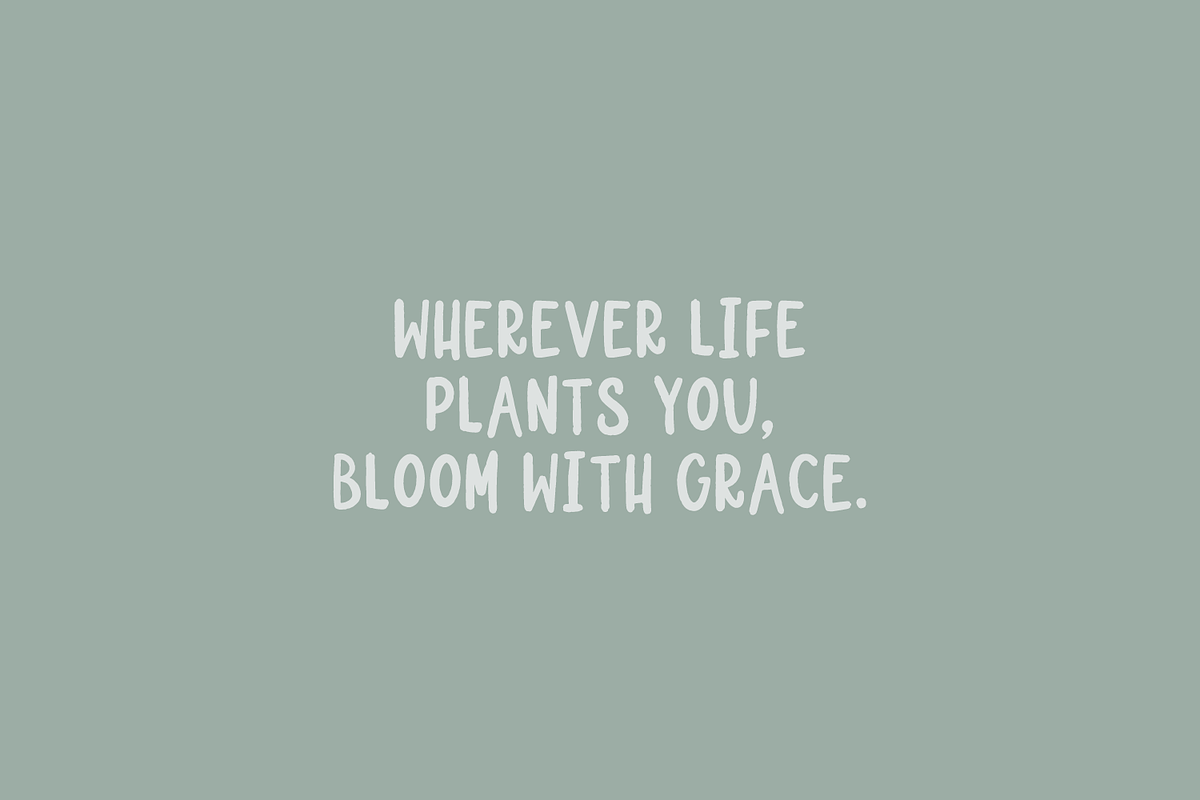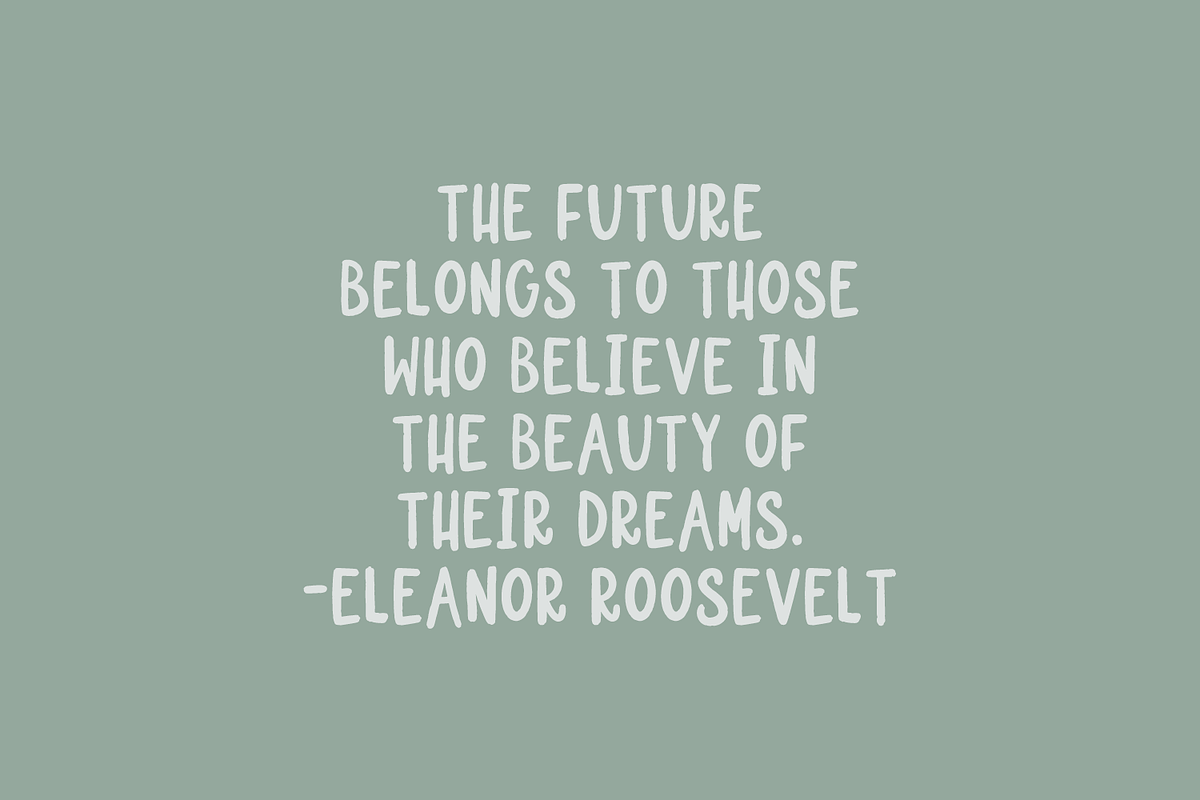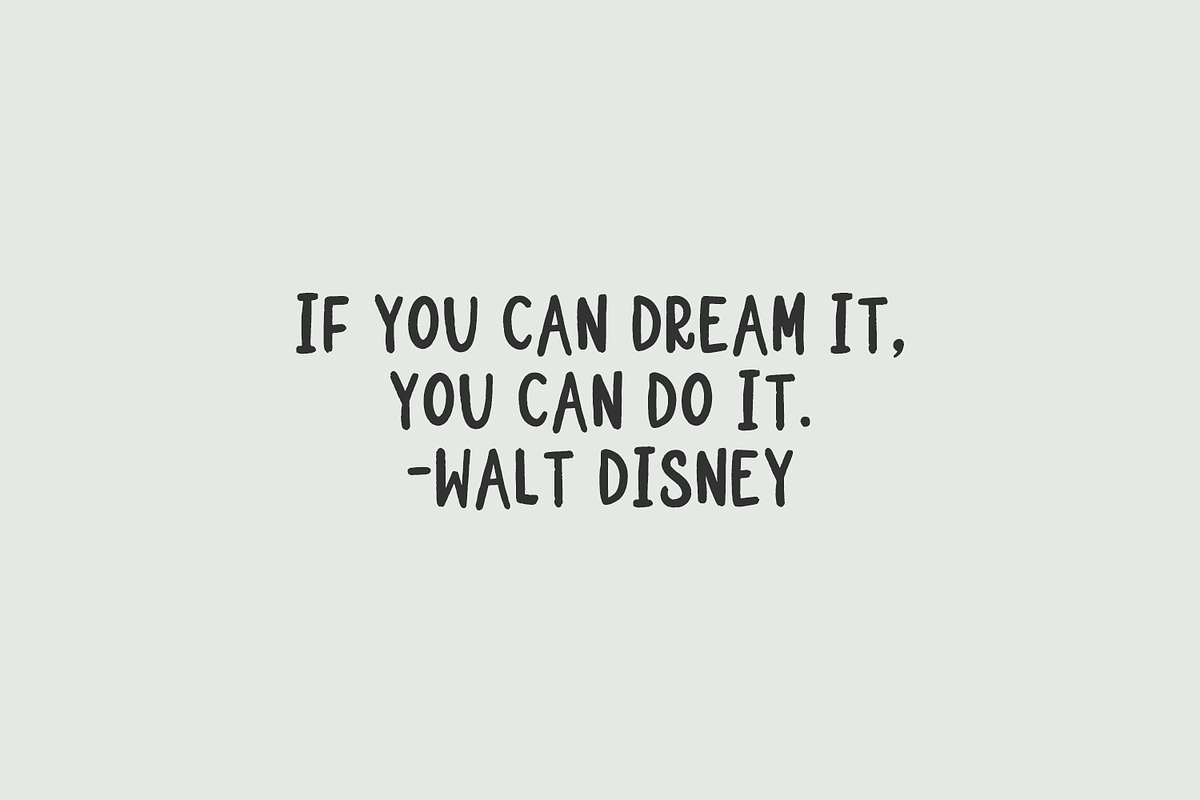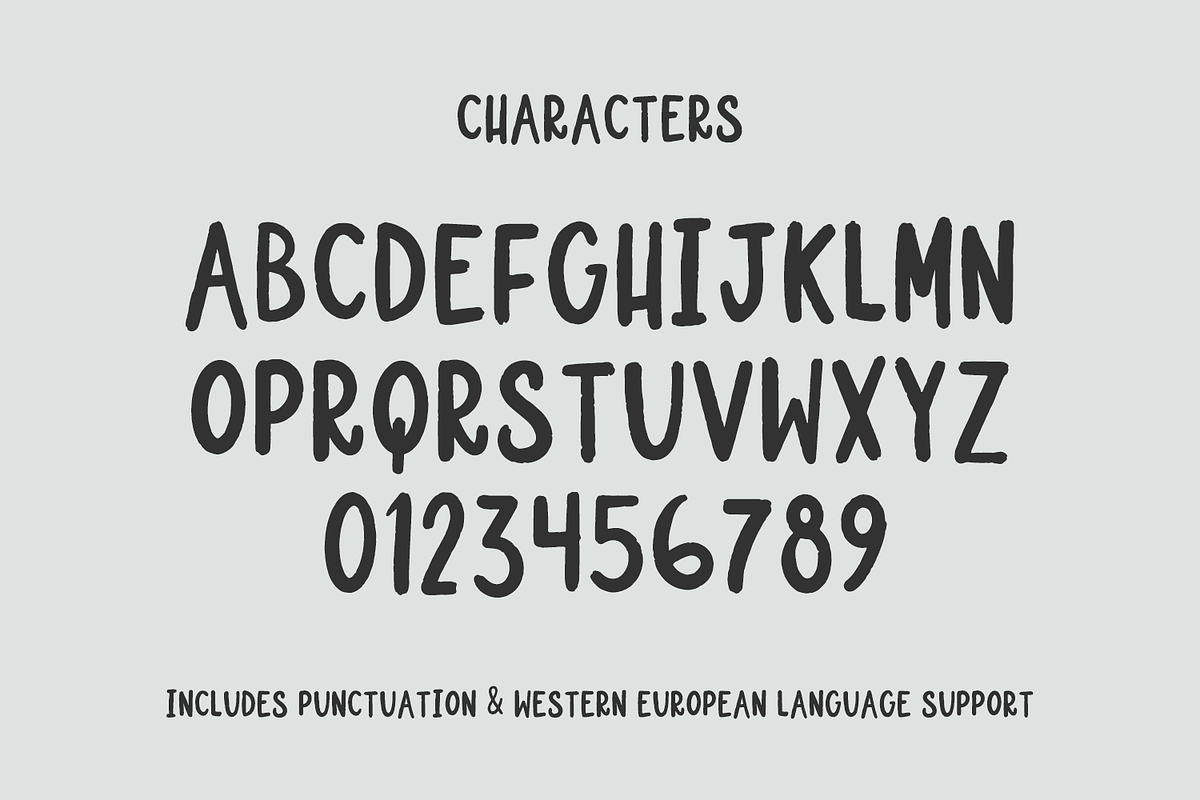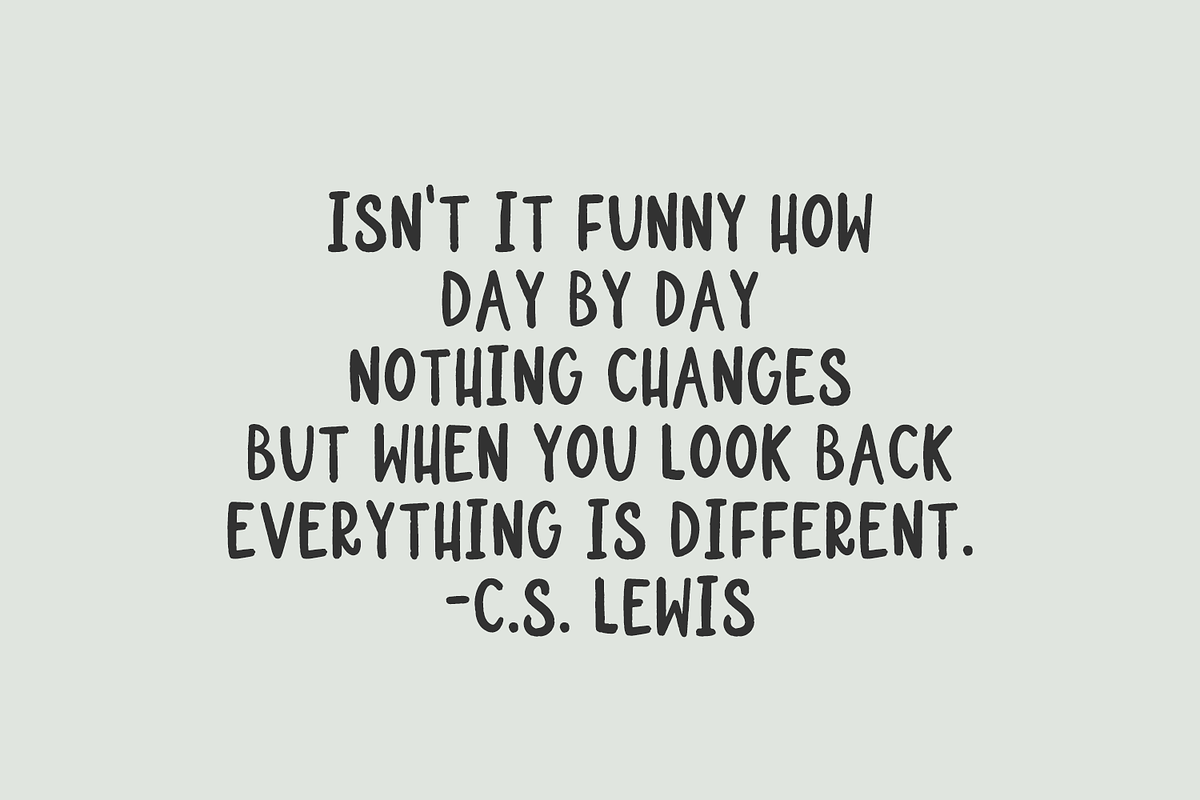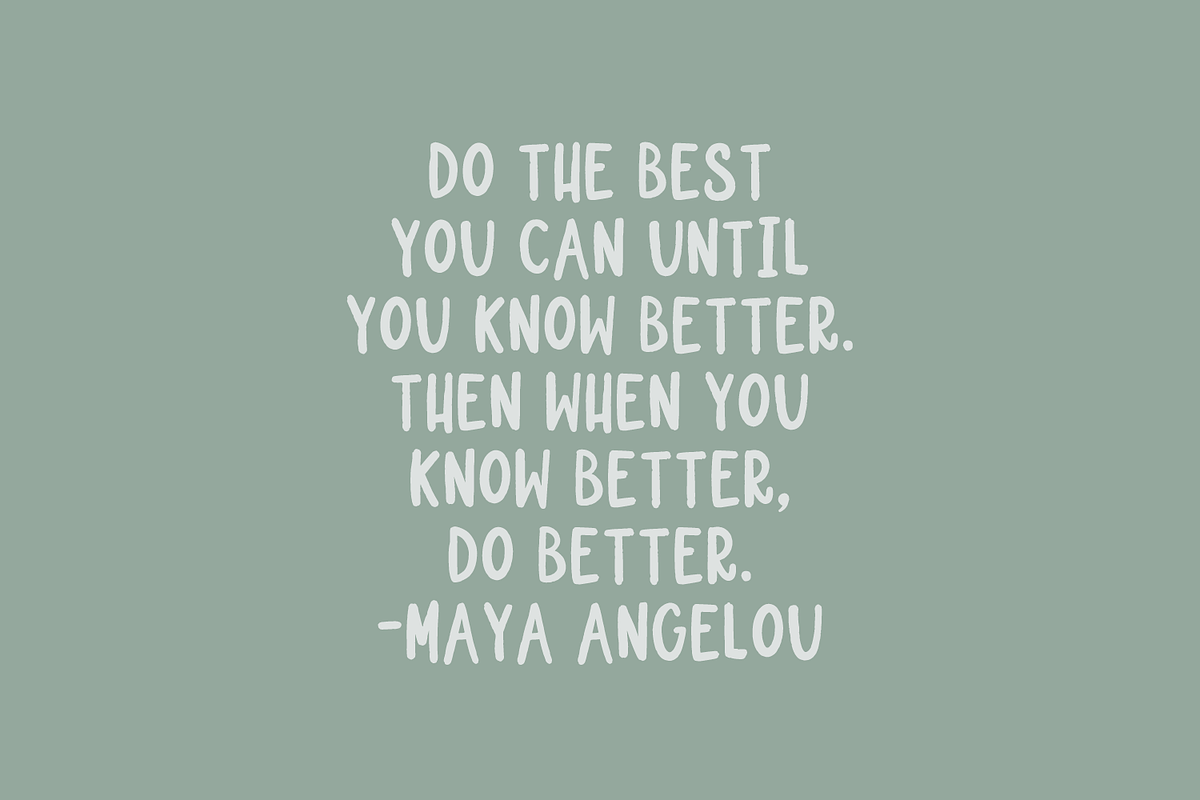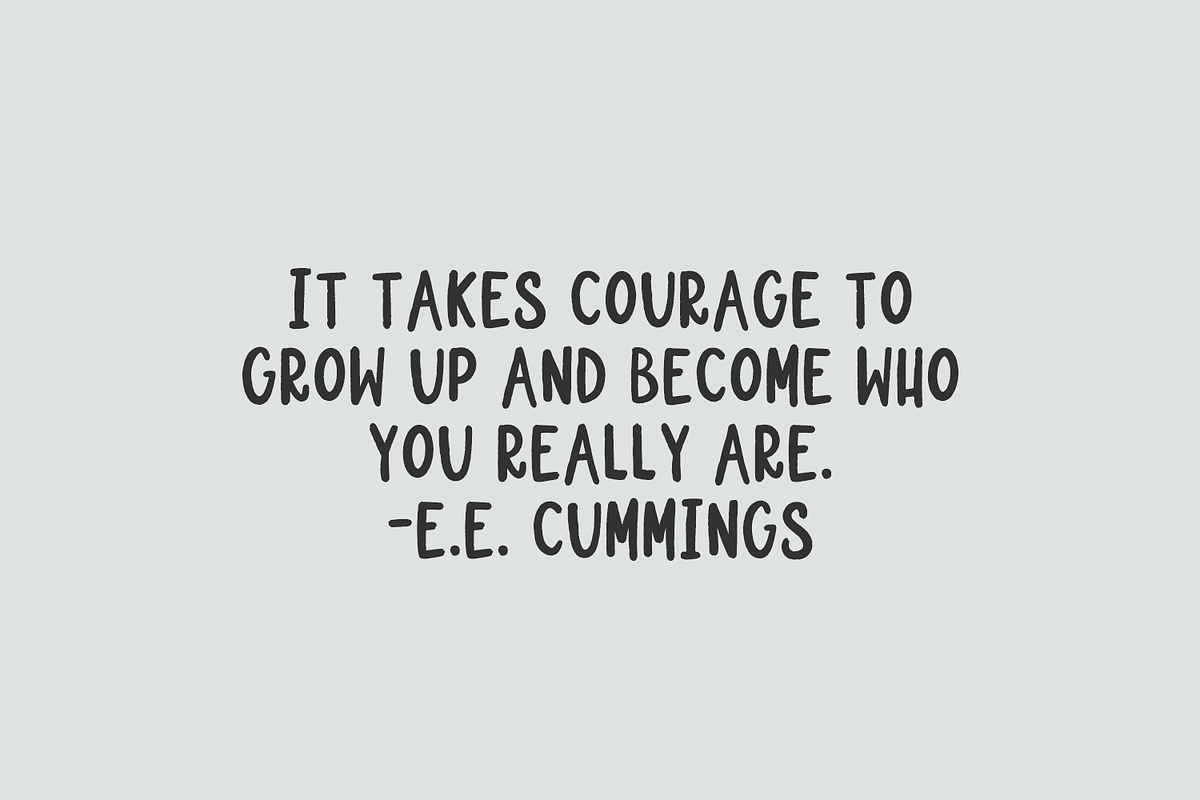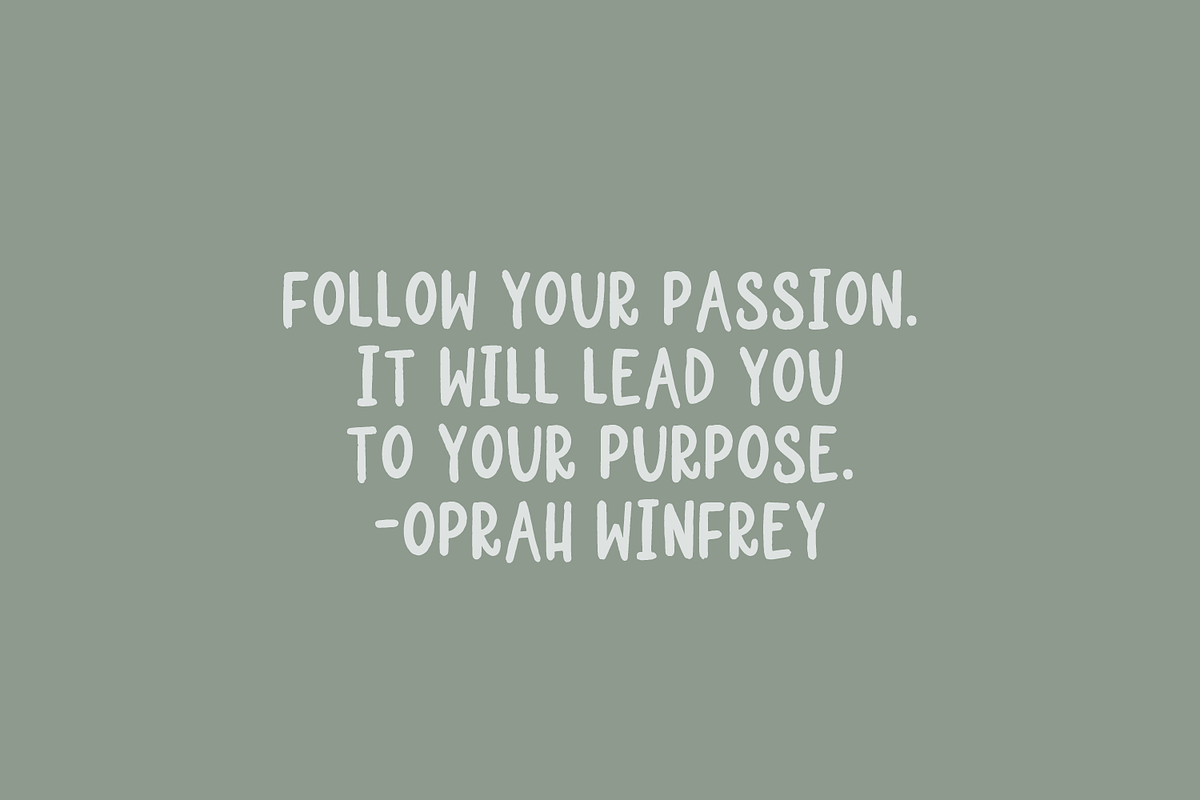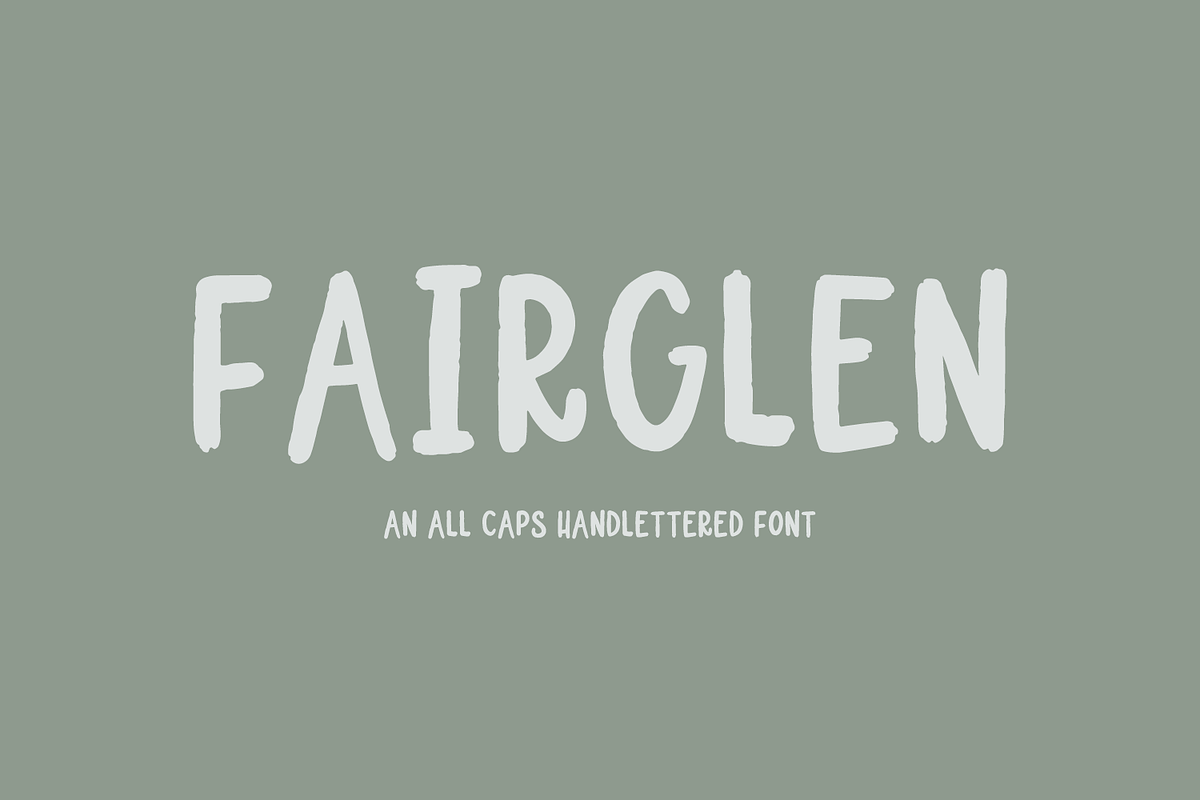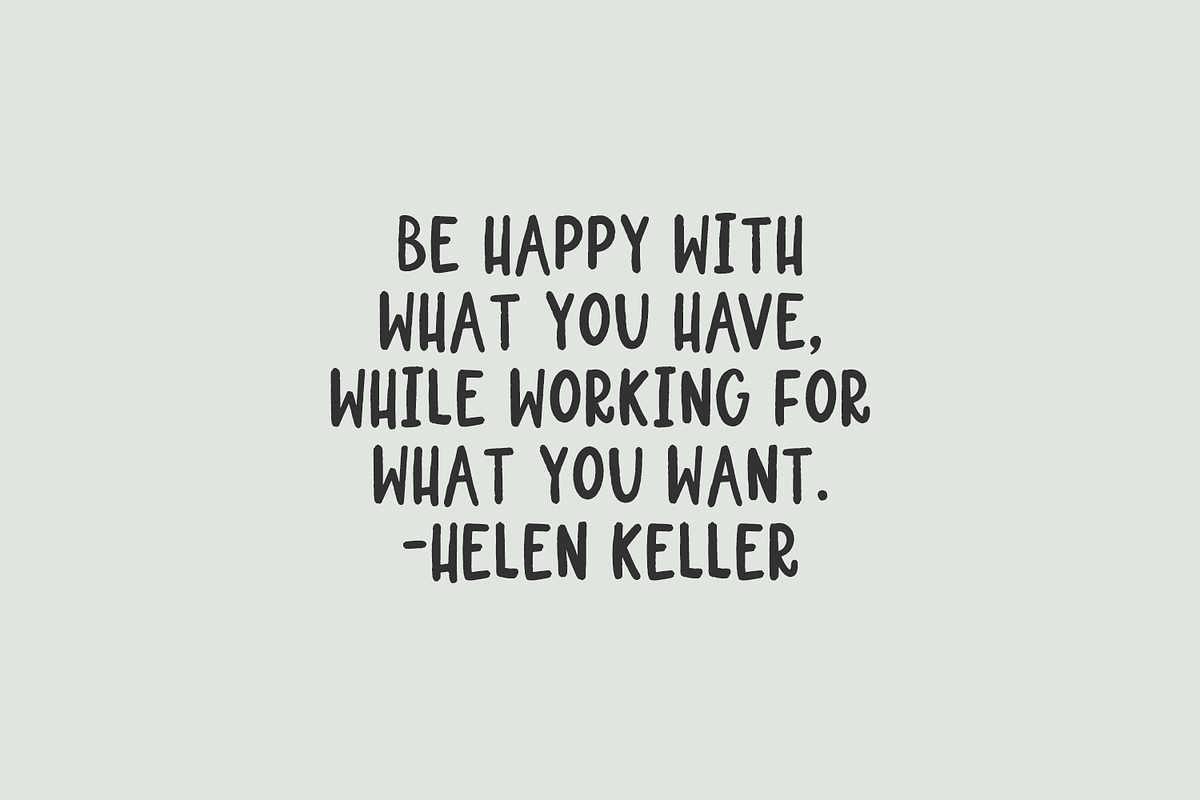
Fairglen Sans
Meet Fairglen Sans, an all-caps font. Fairglen is a bit textured, and resembles marker writing.
Fairglen Sans is best for:
- classrooms & teachers, for bold attention-grabbing words in projects or bulletin boards
- header elements that need a fun look & feel
- quote graphics for social media
- logos + branding
Fairglen includes:
- all uppercase characters - also programmed in lowercase glyph spots
- numbers + punctuation
- Western European Language Support